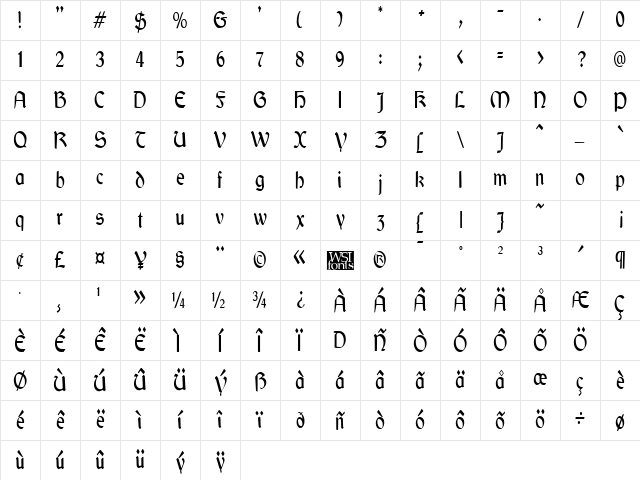
GaelicCondensed Regular
GaelicCondensed Family
GaelicCondensed Regular
Design Context for GaelicCondensed
GaelicCondensed is a composed and adaptable typeface that performs quietly and consistently across a wide range of design contexts. Its narrow stance lets it pack a punch even in space-constrained designs.